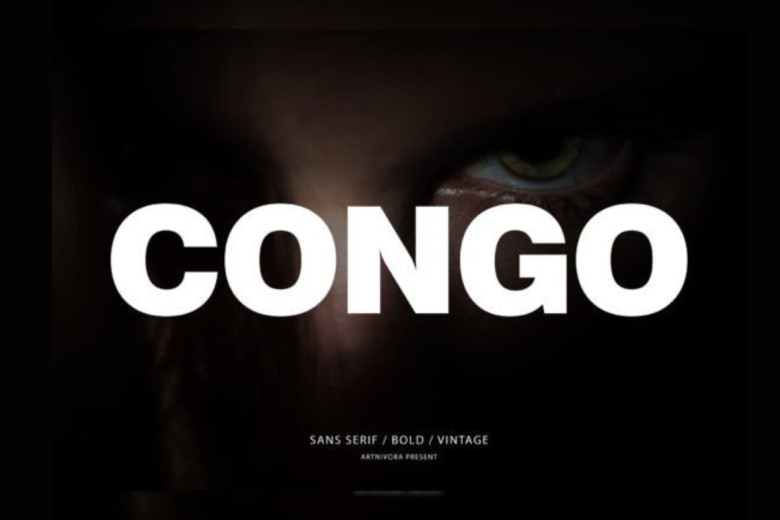
Congo Font
Artnivora.std created and shared Congo as an attractive, modern sans-serif typeface suited for logos, magazines, social media pages or brochures.
Congo Sans Serif Font